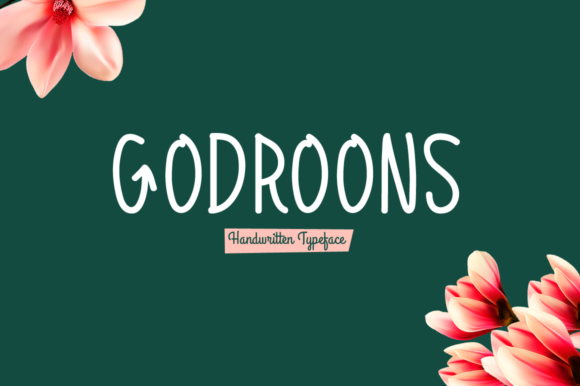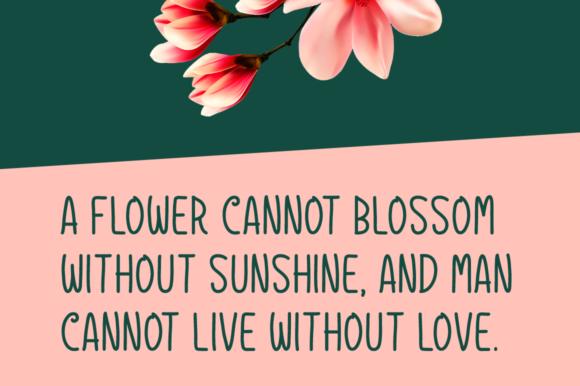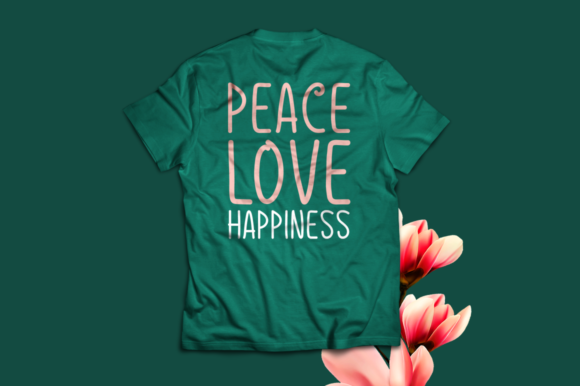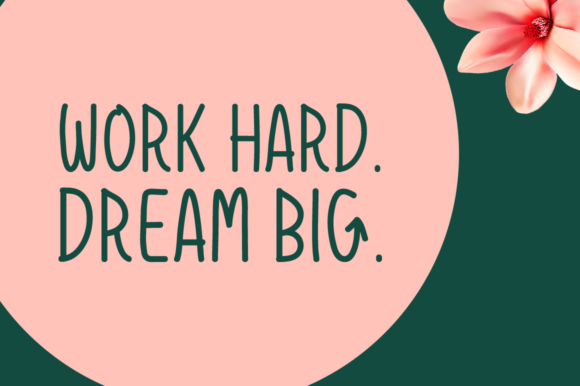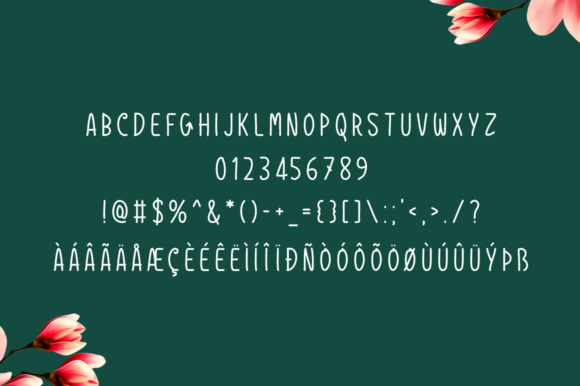
Godroons Font
The Godroons is an amazing handwritten font. It has fun elements and will give a playful feel to your designs.
It’s perfectly suited for stationery, logos, t-shirts, papers, print designs, website headers, photo frames, flyers, music covers, posters, image sliders, and much more!